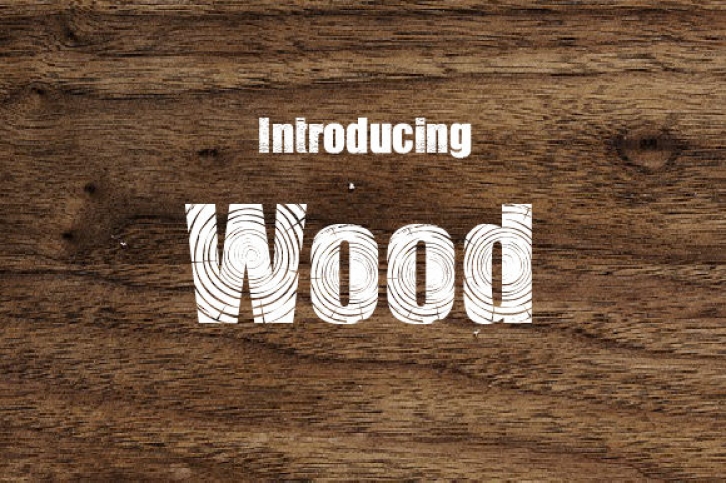
The Wood is an amazing decorative typeface. Its striking characters have a wooden motif which will add an unique touch to your designs.
It’s perfect for name cards, posters, logos, magazines, covers, banners, t-shirts and headers.